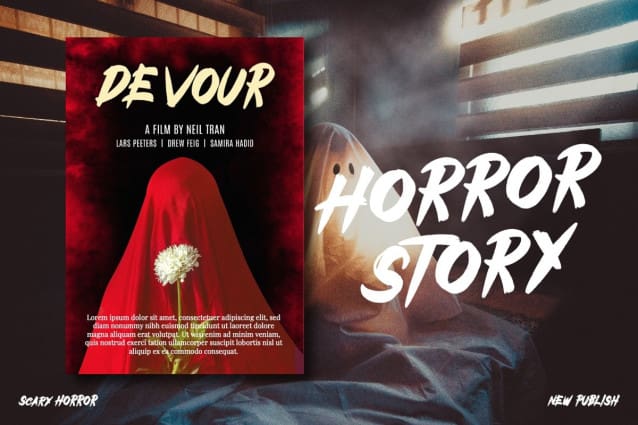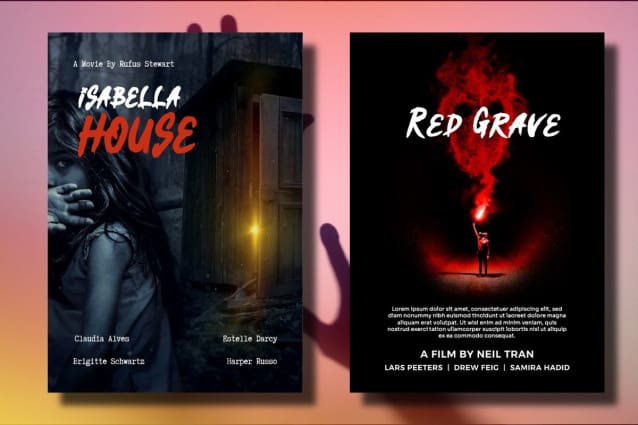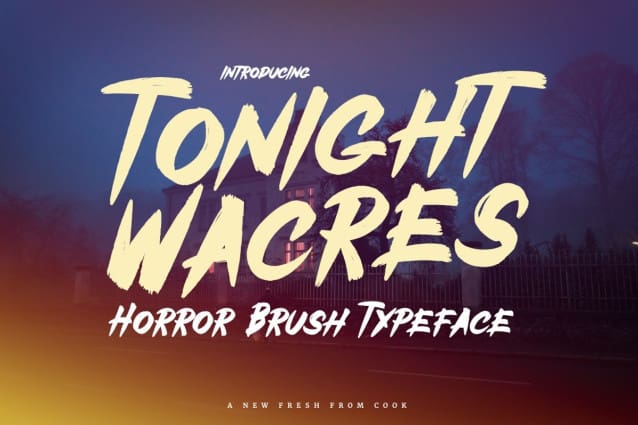
Tonight Wacres Font
Tonight Wacres Font is a flowing and stylish display brush font, created with the help of a brush pen. Get inspired by its unique and beautiful style and add it to your favorite designs!